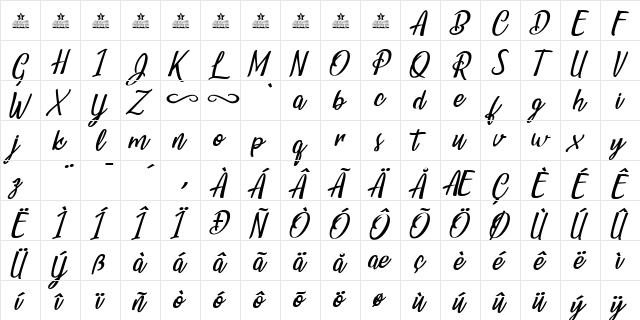
Sunset Beach Regular
| Foundry | Billy Argel |
| Designer | Billy Argel |
Design Context for Sunset Beach Typeface
Sunset Beach is a composed and adaptable typeface that performs quietly and consistently across a wide range of design contexts.